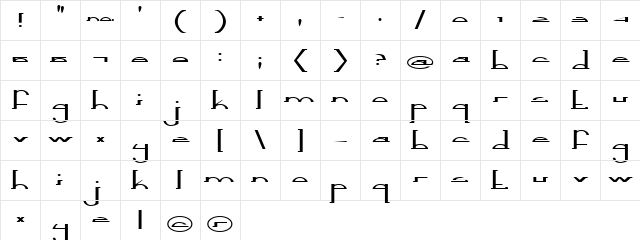
90 Days Regular
Design Context for 90 Days
90 Days is a composed and adaptable typeface that performs quietly and consistently across a wide range of design contexts.